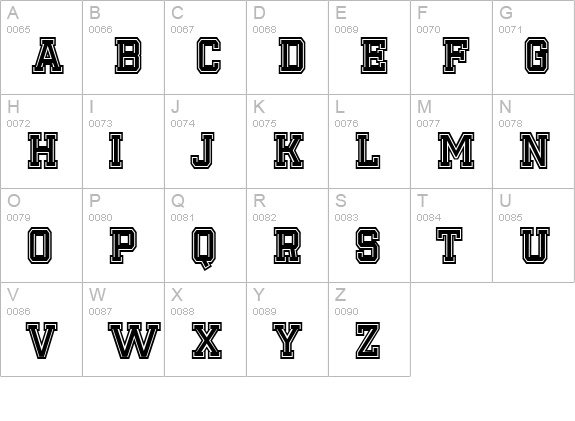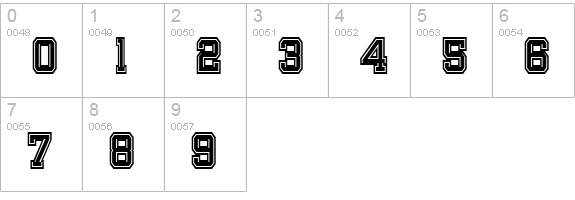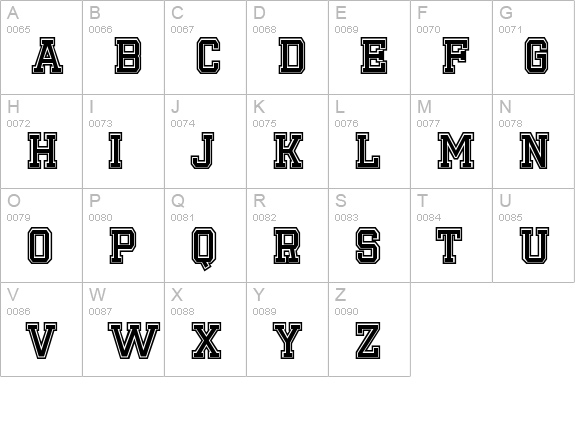
Emilio 20 Font Details
Emilio 20 font is a stunning display typeface that captures attention with its bold and elegant design. With a touch of modernity and a hint of sophistication, this font is perfect for creating eye-catching headlines, titles, and logos. What sets Emilio 20 font apart is its versatility. Whether you're designing for print or web, this font will elevate your project to a whole new level. Its clean lines and well-balanced proportions make it easily readable, even at smaller sizes. But what makes Emilio 20 font truly remarkable is that it is freely available to download at FontsMarket.com. That's right, you can add this exquisite font to your collection without spending a dime. With its wide range of characters and punctuation marks, Emilio 20 font offers endless possibilities for your creative endeavors. So why wait? Download Emilio 20 font today and let your designs stand out from the crowd. Whether you're designing a magazine layout, creating a website, or crafting a poster, this font will bring a touch of elegance and sophistication to your work. Don't miss out on this fantastic opportunity to enhance your designs with this wonderful free font.